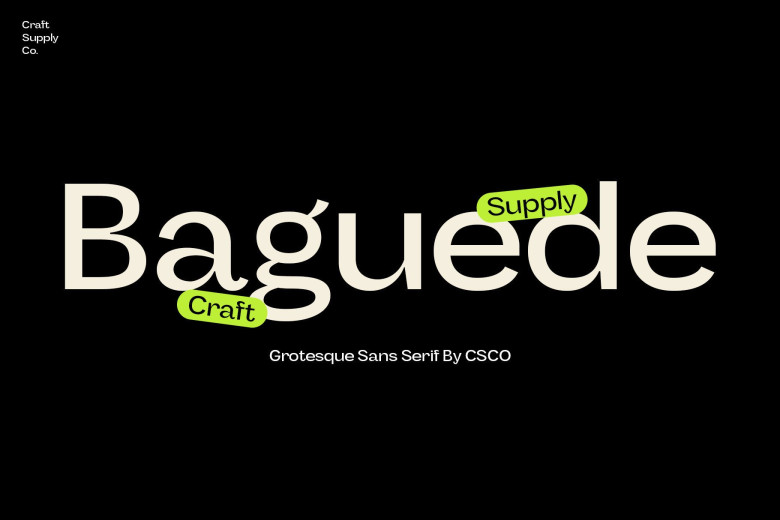
Welcome our newest fonts Baguede, a post modern grotesque sans deterrency typeface with Fancy and catchy touch to maintain a sophisticated feel to be use in display purposes such as greeting card, package design, or even brand identity, craft design, any DIY project, book title, poster, pop vintage design, retro design and any purpose to make your art / design project look elegant and trendy. Feel free to play with this typeface!
Baguede Sans Serif Font